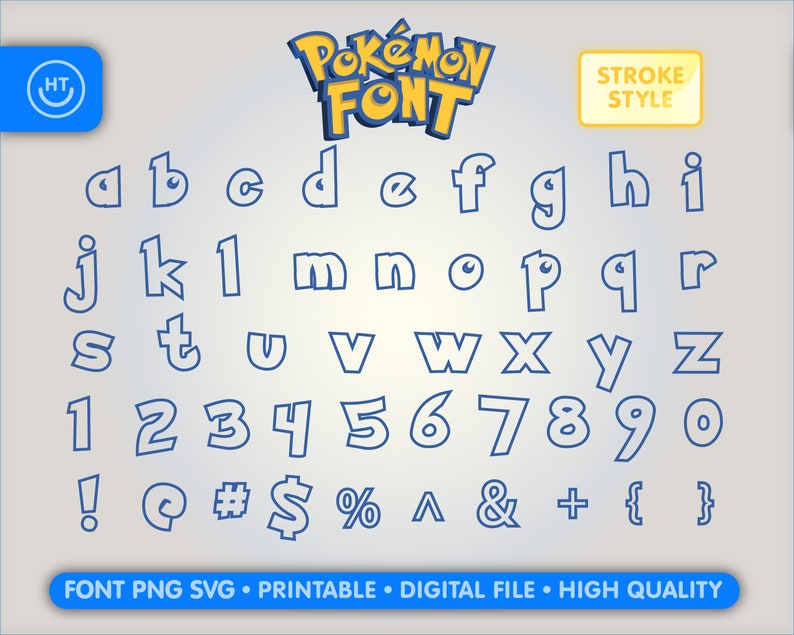
Pokémon Free Pokemon Font Master Bundles Pokemon Font For Word Try our text generator and create cool graphics for pokemon font, then you can. Pokémon font | dafont.com english français español deutsch italiano português. Pokemon font generator & download is available free at fontbolt. Generate your own custom pokemon designs with these fonts styled after pikachu and all your favorite pocket monster characters. Whether it's names, quotes, or any text. Pokemon Font For Word.
Pokémon Font Free Download Pokemon Font For Word Whether it's names, quotes, or any text you want to see in the pokémon font, this is where your adventure begins. Generate your own custom pokemon designs with these fonts styled after pikachu and all your favorite pocket monster characters. Pokémon font | dafont.com english français español deutsch italiano português. Pokemon font generator & download is available free at fontbolt.. Pokemon Font For Word.
Pokemon Font SVG TTF OTF Pokemon Bold Font Pokemon Hollow Etsy Hong Kong Pokemon Font For Word Pokemon font generator & download is available free at fontbolt. The font is available in two styles, pokemon solid and pokemon. Whether it's names, quotes, or any text you want to see in the pokémon font, this is where your adventure begins. Generate your own custom pokemon designs with these fonts styled after pikachu and all your favorite pocket monster. Pokemon Font For Word.
Pokemon Font SVG Cricut Layered Pokemon Font TTF Pokemon Inspire Pokemon Font For Word The font is available in two styles, pokemon solid and pokemon. Try our text generator and create cool graphics for pokemon font, then you can. Pokémon font | dafont.com english français español deutsch italiano português. Generate your own custom pokemon designs with these fonts styled after pikachu and all your favorite pocket monster characters. Whether it's names, quotes, or any. Pokemon Font For Word.